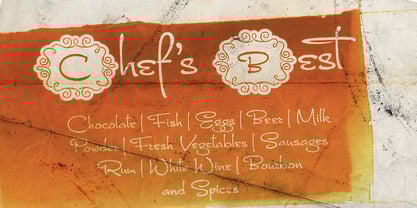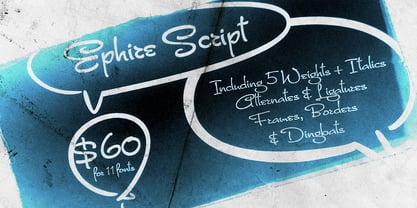
FM Ephire
by The Fontmaker
FM Ephire Font Family was designed by Jordan Jelev, Vassil Kateliev and published by The Fontmaker. FM Ephire contains 11 styles family package options.
FM Ephire is a hand-drawn, multilingual, type family of five weights with complimenting italics. Stuffed with tons of features, Ephire really shines through its artistic and stylish, yet elegant feel of natural handwriting. It is your best choice whenever you design greeting cards, banners or posters, and it also handles pretty well for body text, even in small sizes. Enjoy Ephire!
Designers: Jordan Jelev, Vassil Kateliev
Publisher: The Fontmaker
Foundry: The Fontmaker
Design Owner: The Fontmaker